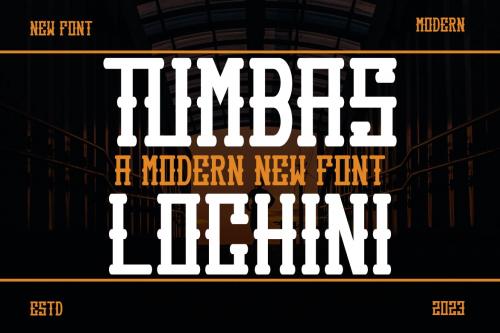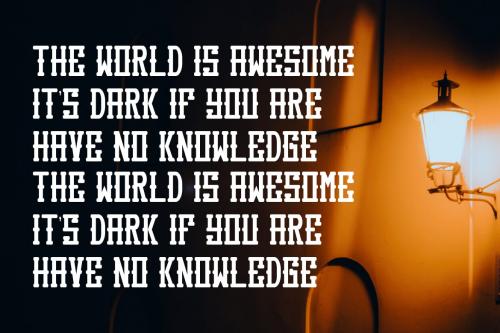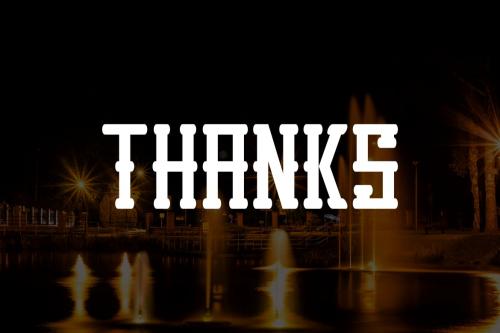
洛奇尼墓碑 - 一款流行字体
Tumbas Lochini - a Popular Font
**Introducing Tumbas Lochini Modern Serif Font**. Tumbas Lochini is a modern and simple font, best used as a display for headings, logos, branding, magazines, product packaging and invitations. Tumbas Lochini come with clean lines and smooth curves give any project an extra touch of class.